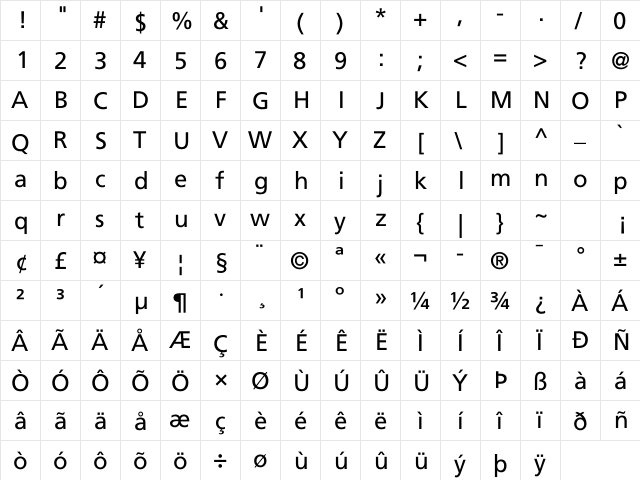
Frutiger LT Com 55 Roman
| Foundry | Linotype GmbH |
| Designer | Adrian Frutiger |
Design Context for Frutiger LT Com Typeface
Frutiger LT Com takes a measured approach to typography — its balanced proportions and neutral character make it a reliable workhorse for both digital and print work. Its slender proportions lend an understated elegance to any composition.